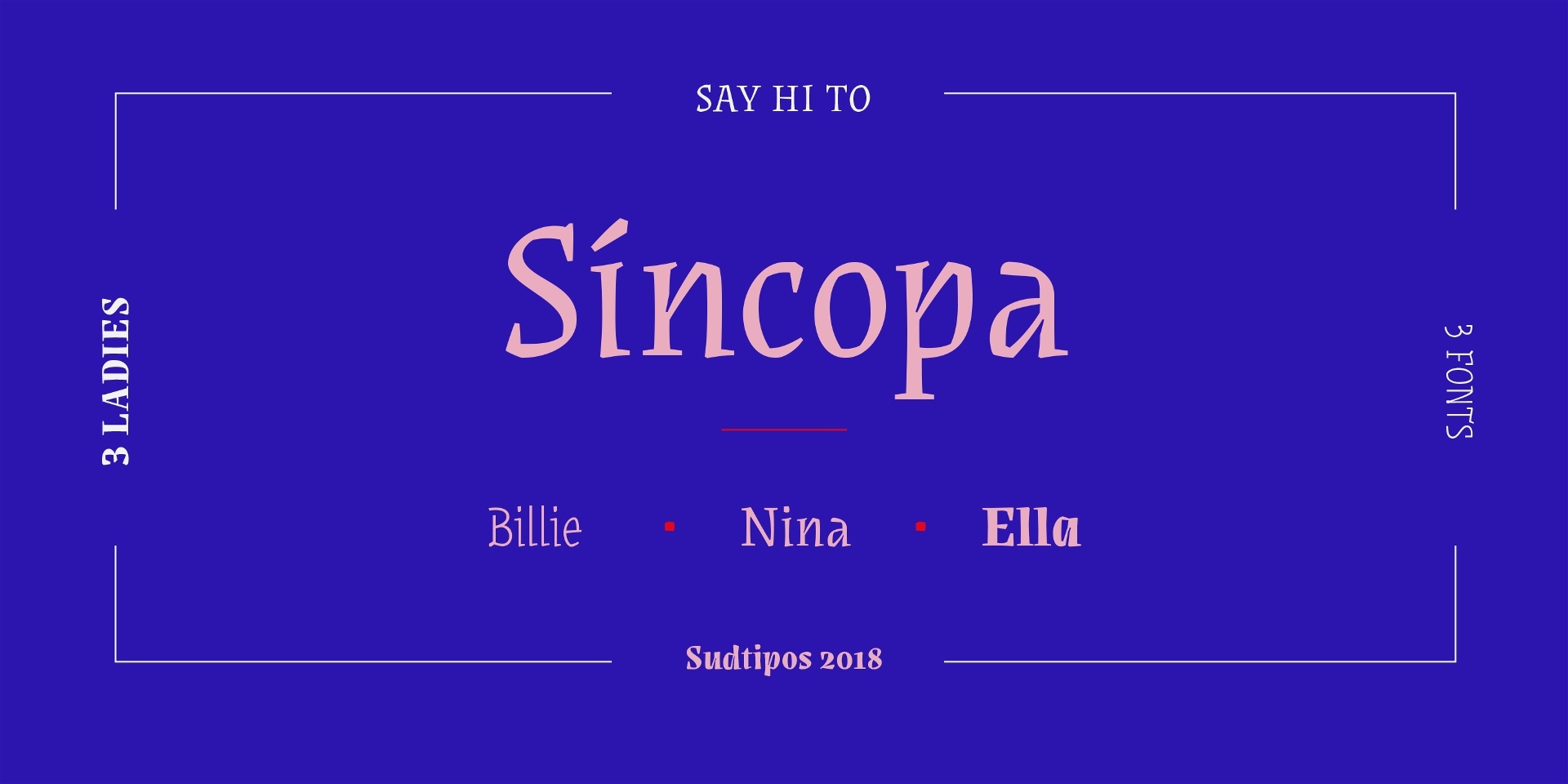
Sincopa Font
Sincopa Font is perfect for jazz club posters, music festival branding, album cover design, rhythmic logos, dance studio materials, nightclub graphics, concert promotional materials, music magazine layouts, vinyl record labels, radio station branding, entertainment venue signage, and creative projects that require dynamic, rhythm-inspired typography with musical energy.
What makes Sincopa Font so exciting is its syncopated rhythm and musical sophistication that captures the improvisational spirit and dynamic energy of jazz and contemporary music. This typeface features flowing letterforms with rhythmic variations and melodic curves that mirror the complex harmonies and spontaneous creativity found in musical composition. The font's expressive character and artistic flair make it perfect for brands and projects that want to communicate creativity, sophistication, and the vibrant energy of musical culture.
Sincopa Font typically comes in multiple weights and styles including Light, Regular, Medium, Bold, and Black variations, along with stylistic alternates. Many versions also include musical symbols, decorative ligatures, and rhythmic ornaments that enhance the font's musical authenticity and provide designers with comprehensive tools for creating harmonious, music-inspired typography compositions.
Whether you're designing entertainment branding, cultural event materials, or artistic communications, Sincopa Font delivers exceptional emotional appeal and creative authenticity that speaks to audiences who value musical culture and artistic expression. Its dynamic letterforms work beautifully in both large display applications and smaller text settings, maintaining its distinctive musical personality across all design contexts.
The artistically crafted letterforms of Sincopa Font demonstrate the perfect fusion of typographic excellence and musical inspiration. Each character has been designed to capture the spontaneous energy and sophisticated harmony that defines great music, ensuring that your designs maintain both aesthetic appeal and emotional depth that resonates with culturally aware audiences seeking authentic artistic expression.